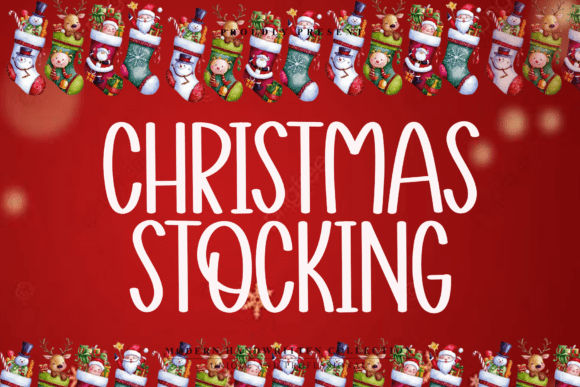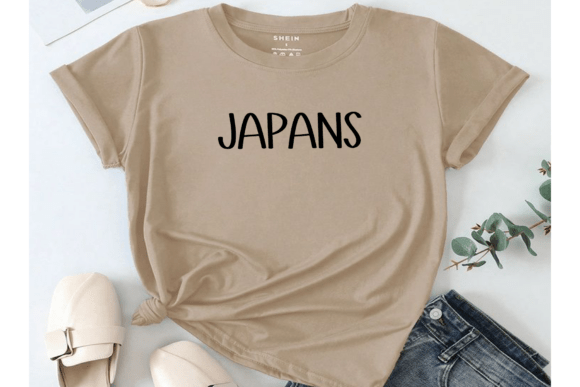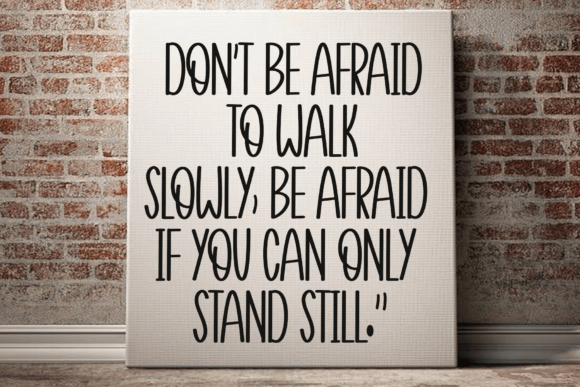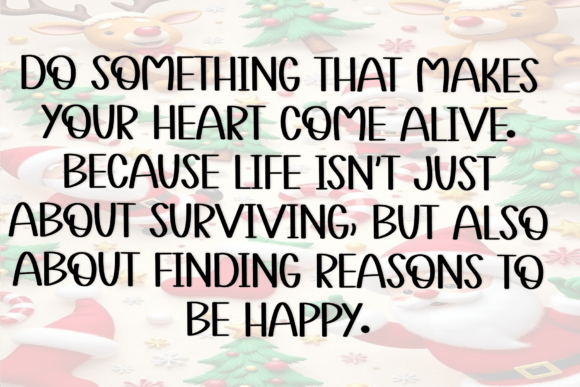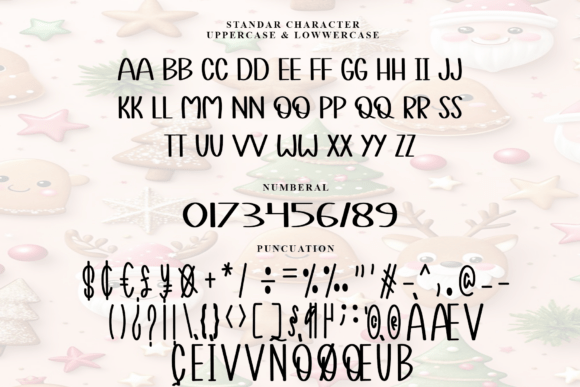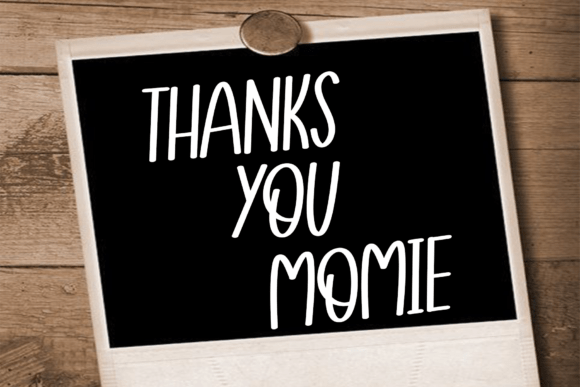
Wrapping Up Your Design with the Perfect Font
It’s that time of the year when the holiday season is in full swing, and you’re in the midst of creating the perfect Christmas marketing campaign, social media posts, or maybe even a special invitation for your loved ones. As you search for the perfect font to capture the essence of the season, you stumble upon a delightful discovery – the Christmas Stocking Font.
This charming handwritten font radiates warmth and personality, making it an ideal choice for adding a personal touch to your designs. With its smooth strokes, natural curves, and easy-flowing letterforms, the Christmas Stocking Font is sure to bring a smile to your audience’s faces. Whether you’re a seasoned designer or a DIY enthusiast, this font is a valuable addition to your toolkit, offering both readability and charm that will elevate your designs to the next level.
- Unique Holiday Design: The Christmas Stocking Font features a festive and playful design, perfect for adding a holiday touch to your designs.
- Character Set: Includes a wide range of characters, including uppercase and lowercase letters, numbers, and punctuation marks, as well as festive symbols and ornaments.
Designer Review: Christmas Stocking Font
Overall, I think the Christmas Stocking Font is a solid addition to any holiday-themed project ✨. The font’s playful, whimsical design captures the spirit of the season and adds a touch of magic to any text.
The font’s versatility is one of its strongest features. It works well for both digital and print projects, from social media graphics to holiday cards and decorations ✨. The font’s bold, eye-catching design makes it perfect for headlines and titles, while its more delicate lines make it suitable for body text.
- Playful, whimsical design that captures the spirit of the season ✨
- Highly versatile and suitable for both digital and print projects
- Bold, eye-catching design makes it perfect for headlines and titles
- Delicate lines make it suitable for body text
- ⚠️ Limited character set and may not be suitable for extensive text-based projects
- ⚠️ Some characters may not render correctly in certain font sizes or styles
Overall, I would recommend the Christmas Stocking Font to anyone looking to add a touch of holiday magic to their project ✨. While it may have some limitations, its versatility and unique design make it a valuable addition to any holiday-themed project.
To get the most out of the Christmas Stocking Font, use it to create festive headings, titles, or even entire holiday-themed designs.
– Holiday greeting cards
– Gift tags
– Party invitations
Alternatives to Christmas Stocking Font
Great Vibes is a beautiful, cursive script font perfect for adding a touch of elegance to your designs. It’s ideal for wedding invitations, greeting cards, and other special occasion designs. Compared to Christmas Stocking Font, Great Vibes has a more refined and sophisticated feel, making it a great choice for designs that require a bit more sophistication.
Alex Brush is a elegant, handwritten font that’s great for adding a personal touch to your designs. It’s perfect for invitations, menus, and other designs where a handwritten feel is desired. Compared to Christmas Stocking Font, Alex Brush has a more subtle and refined feel, making it a great choice for designs that require a bit more understatement.